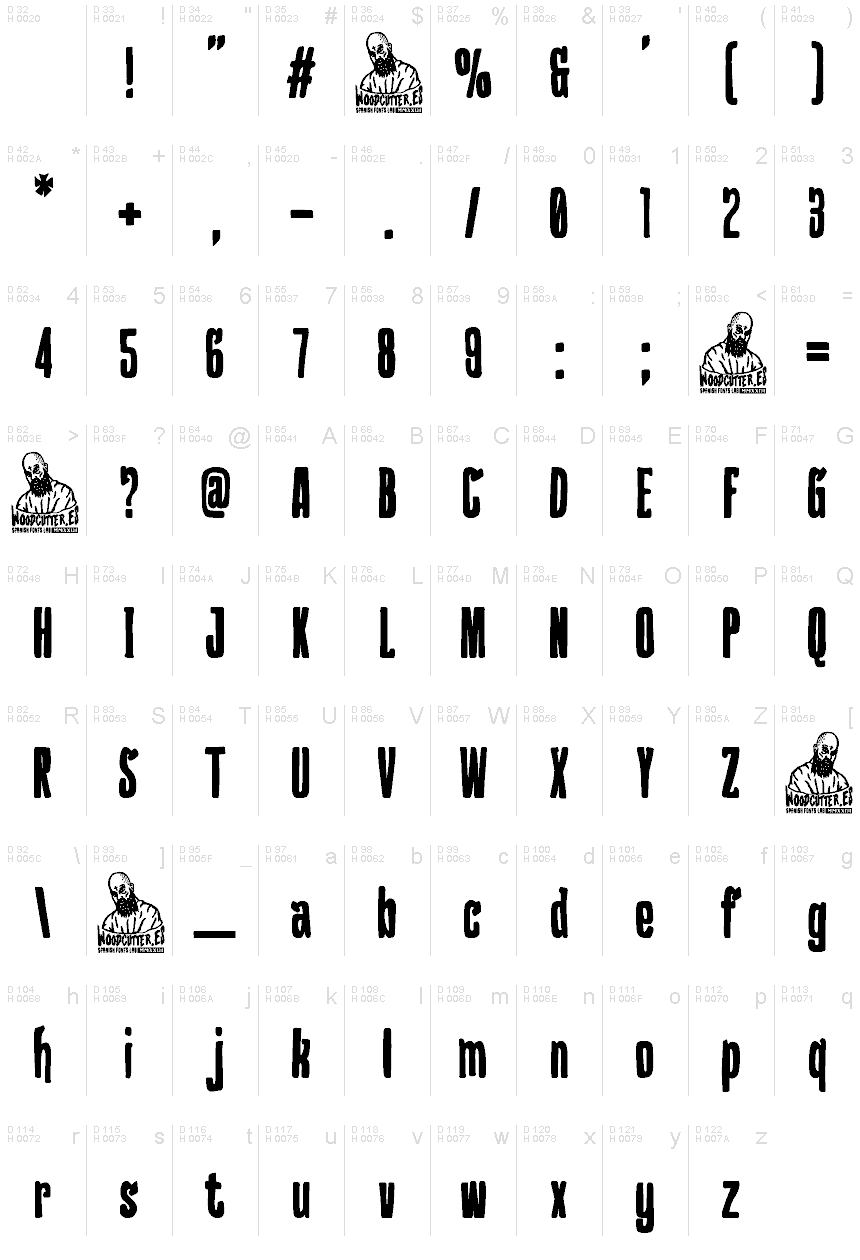
Sweet Home Alabama
Sweet Home Alabama font by Woodcutter blends Victorian-inspired elements with a modern condensed feel. This display font has a whimsical mood, and retro charm and often features decorative elements that add flair to the letters. Its dramatic personality emerges in complete sets of uppercase, lowercase, and numbers.